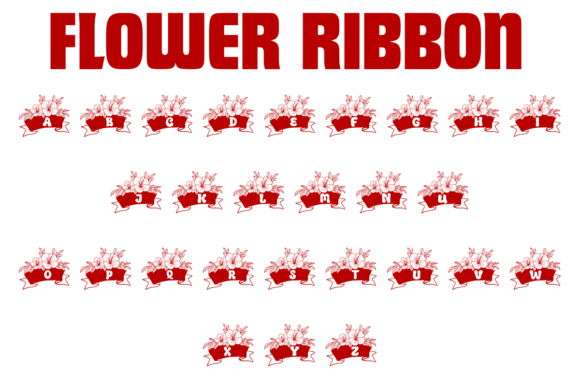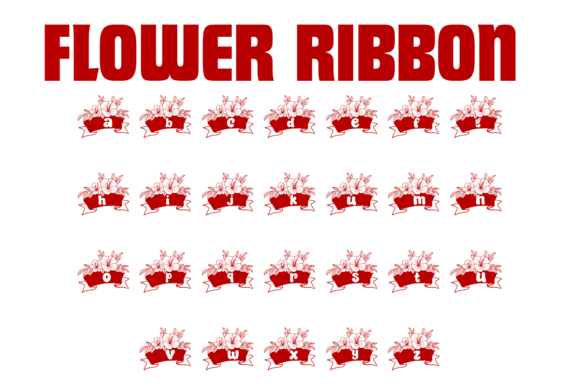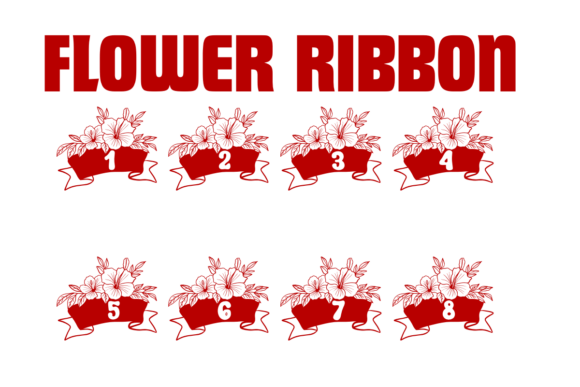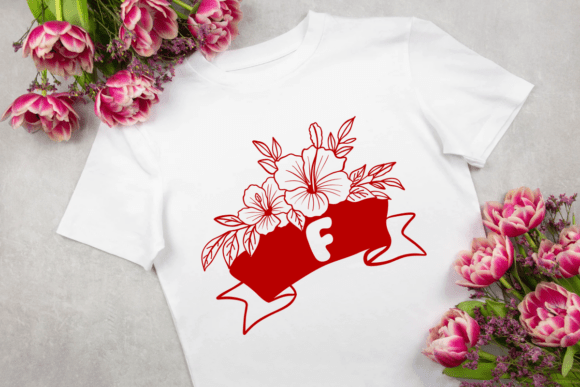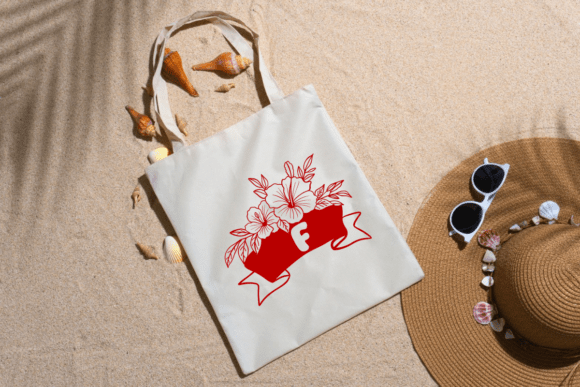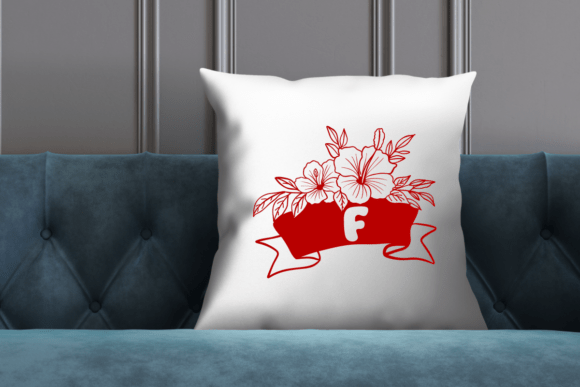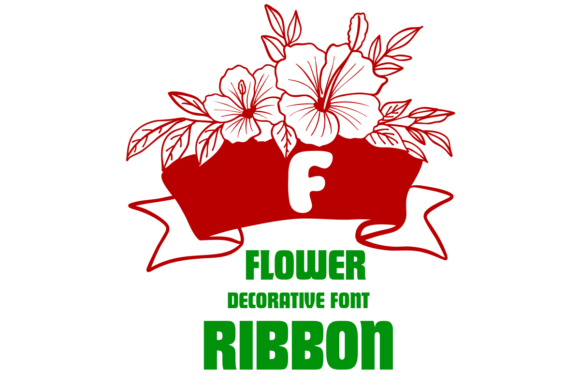
Introducing Flower Ribbon Font: Elevate Your Designs with a Touch of Elegance
Are you a designer, crafter, or simply someone who loves to add a personal touch to their creations? Look no further than the Flower Ribbon Font, a beautiful and decorative font that’s perfect for a variety of projects. In this article, we’ll explore the versatility of Flower Ribbon Font and how you can use it to take your designs to the next level.
What is Flower Ribbon Font?
Flower Ribbon Font is a decorative font that’s designed to add a touch of elegance and whimsy to your creations. Its intricate and flowing design makes it perfect for a range of applications, from personal notes and diaries to professional designs and marketing materials.
Uses for Flower Ribbon Font
One of the best things about Flower Ribbon Font is its versatility. Here are just a few ideas for how you can use it:
- Note-taking and journaling: Add a touch of personality to your notes and diary entries with Flower Ribbon Font. It’s perfect for headers, titles, and even doodles.
- Greeting cards and invitations: Create beautiful and unique greeting cards and invitations for special occasions like birthdays, weddings, and holidays.
- Banners and signs: Use Flower Ribbon Font to create eye-catching banners and signs for parties, events, and promotions.
- Social media posts: Add a touch of elegance to your social media posts and make them stand out from the crowd.
- Mugs, shirts, and other merchandise: Use Flower Ribbon Font to create custom mugs, shirts, and other merchandise that makes for a thoughtful gift or promotional item.
- Stationery and paper crafts: Add a touch of whimsy to your stationery and paper crafts, such as cards, gift tags, and scrapbook pages.
Benefits of Using Flower Ribbon Font
So why choose Flower Ribbon Font for your designs? Here are just a few benefits:
- Elegant and sophisticated: Flower Ribbon Font adds a touch of elegance and sophistication to any design.
- Versatile: Use it for a wide range of applications, from personal projects to professional designs.
- Easy to use: Flower Ribbon Font is easy to read and write with, making it perfect for notes, journals, and other handwritten projects.
- Customizable: Experiment with different colors, sizes, and styles to make Flower Ribbon Font your own.
Tips for Using Flower Ribbon Font
Here are a few tips for getting the most out of Flower Ribbon Font:
- Use it sparingly: Flower Ribbon Font is beautiful, but it can be overwhelming if used too much. Use it sparingly to add a touch of elegance to your designs.
- Experiment with colors: Try out different colors and color combinations to see what works best with Flower Ribbon Font.
- Mix and match: Combine Flower Ribbon Font with other fonts and design elements to create a unique look.
Flower Ribbon Font is a beautiful and versatile decorative font that’s perfect for designers, crafters, and anyone who loves to add a personal touch to their creations. With its elegant and sophisticated design, it’s perfect for a wide range of applications, from personal notes and journals to professional designs and marketing materials. So why not give it a try and see how Flower Ribbon Font can elevate your designs to the next level?
Whether you’re a seasoned designer or just starting out, Flower Ribbon Font is a great addition to your toolkit. So go ahead, get creative, and see what amazing things you can create with Flower Ribbon Font!